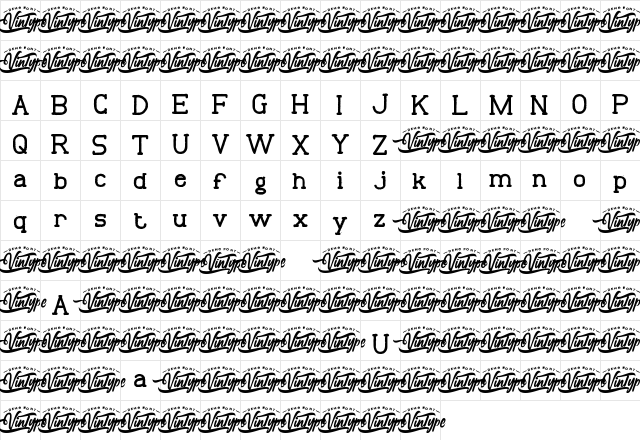
Complete Typewriterz Demo Bold glyph index. Displaying only characters natively supported by Typewriterz Demo Bold font.
Typewriterz Demo uses fixed-width spacing throughout, giving it the structured, systematic character associated with coding environments and technical documentation. Its bold stroke weight gives it real presence on the page.
Pro Tip: Use Typewriterz Demo with slightly increased line-height for extended reading - fixed-width spacing can feel dense in longer passages without extra breathing room.